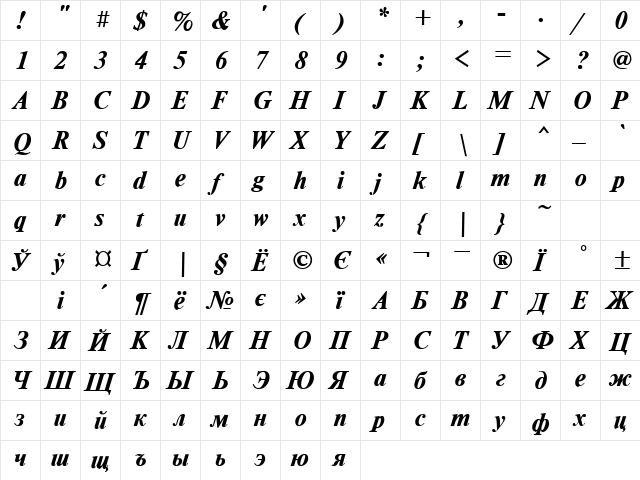
TimesDL Bold Italic
Design Context for TimesDL Typeface
TimesDL offers clean, dependable letterforms without strong stylistic allegiance, making it a practical choice for designers who need flexibility. The slanted form adds forward momentum and visual energy. The heavy weight commands attention and anchors typographic hierarchies.
Pro Tip: Try TimesDL for annotation and caption copy alongside an upright companion — the contrast in angle creates a dynamic but ordered typographic system.